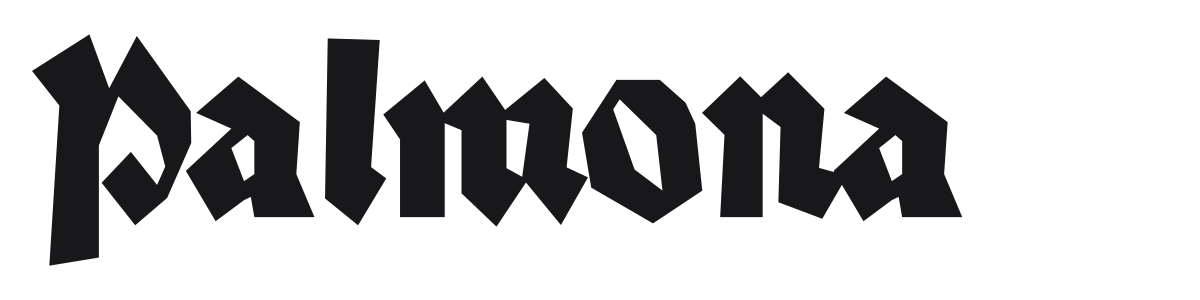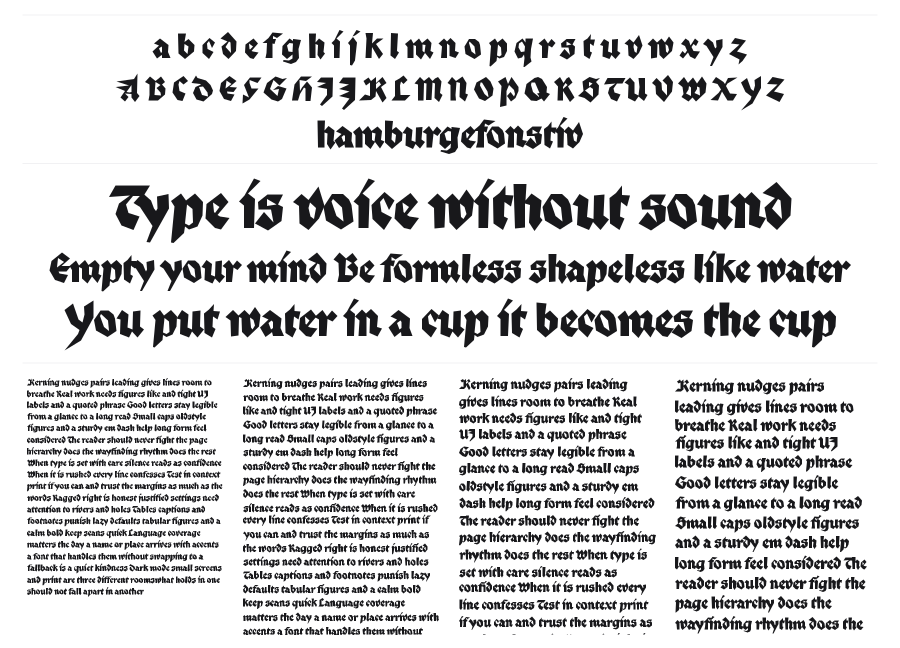
Palmona
Palmona is a heavy Fraktur blackletter with bold, angular construction rooted in the German manuscript tradition. The thick strokes, sharp terminals, and compact spacing give it an authoritative presence that reads clearly even at large sizes. It brings a sense of heritage and craft to branding, posters, and editorial headlines.